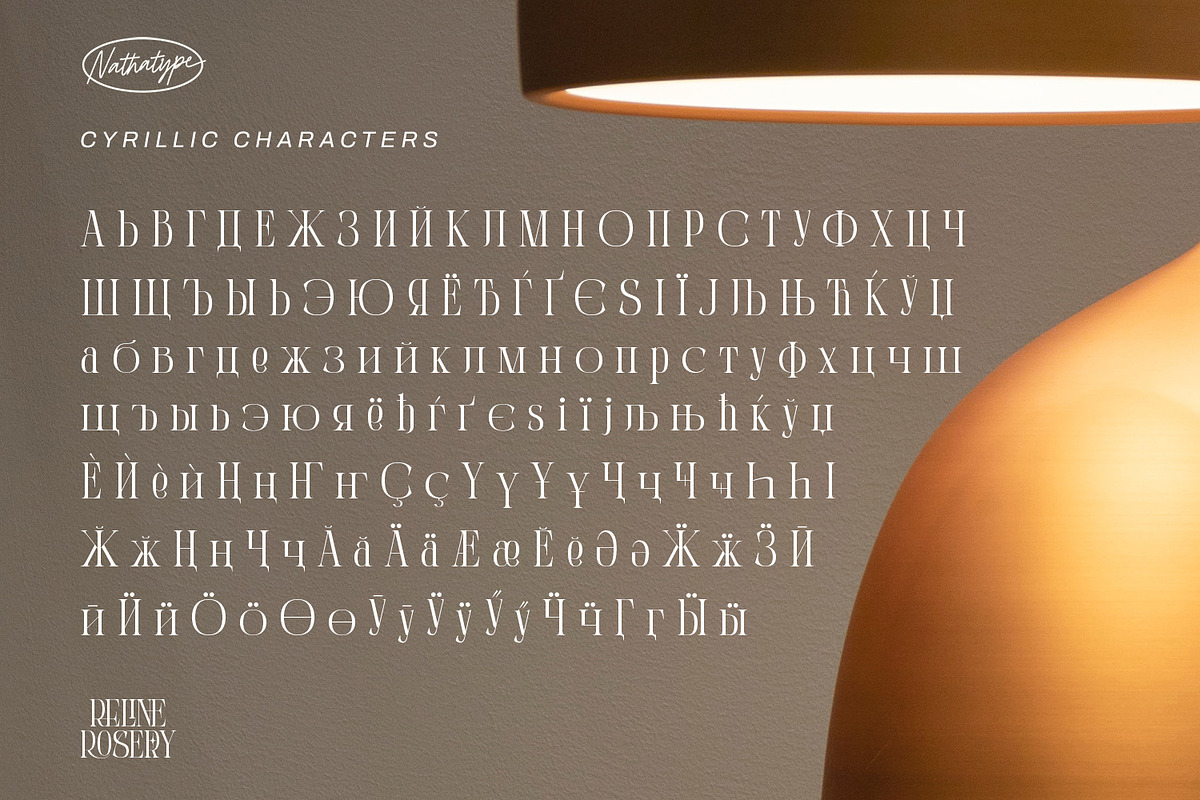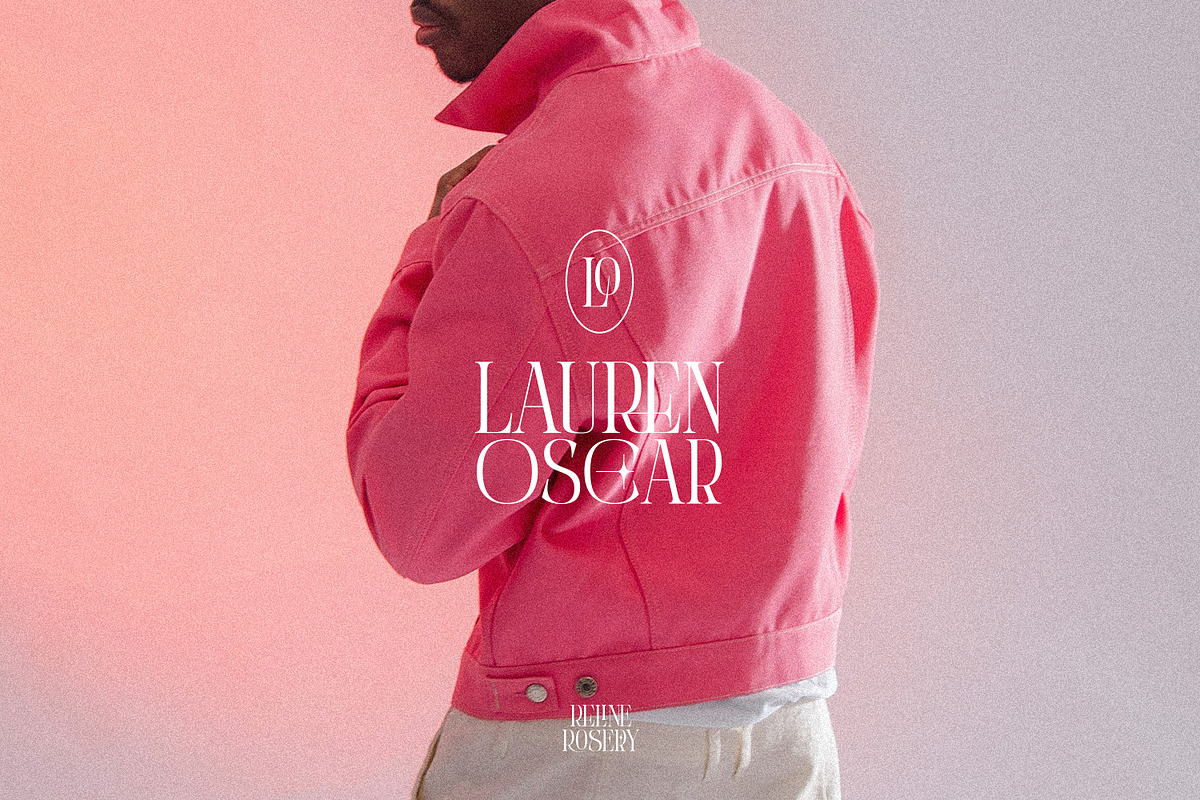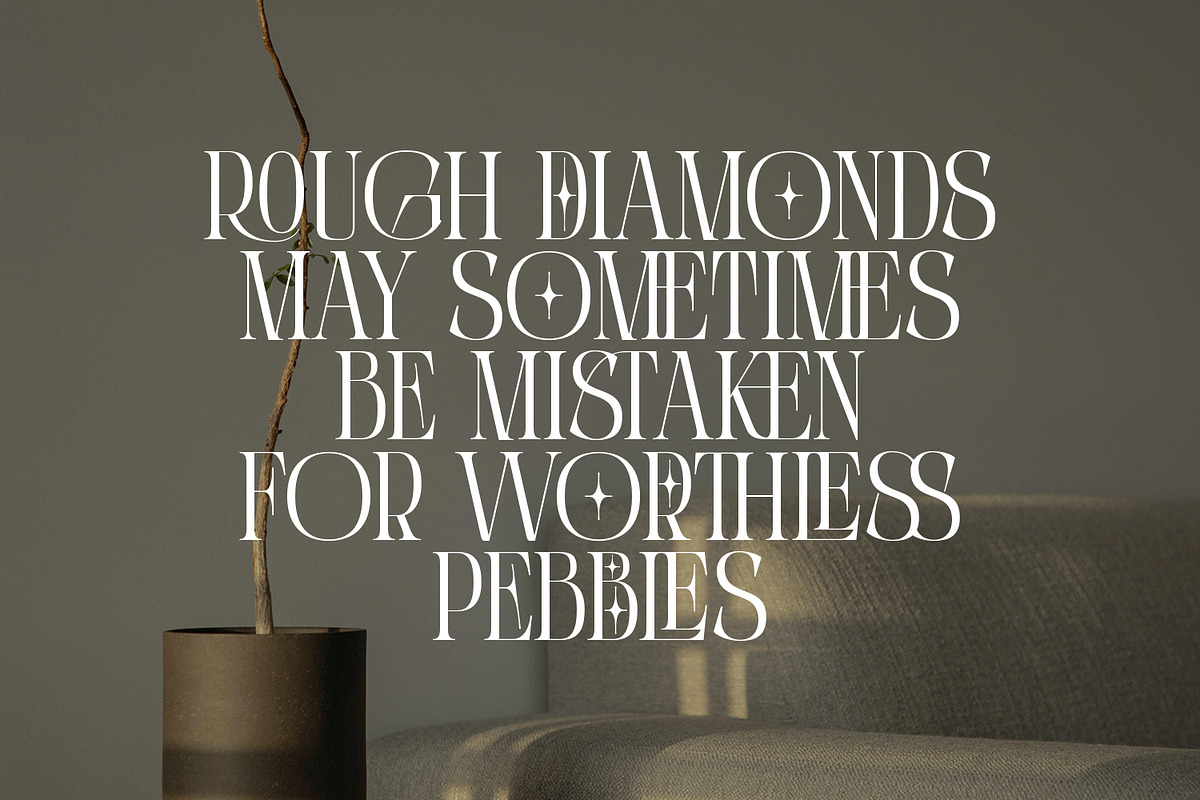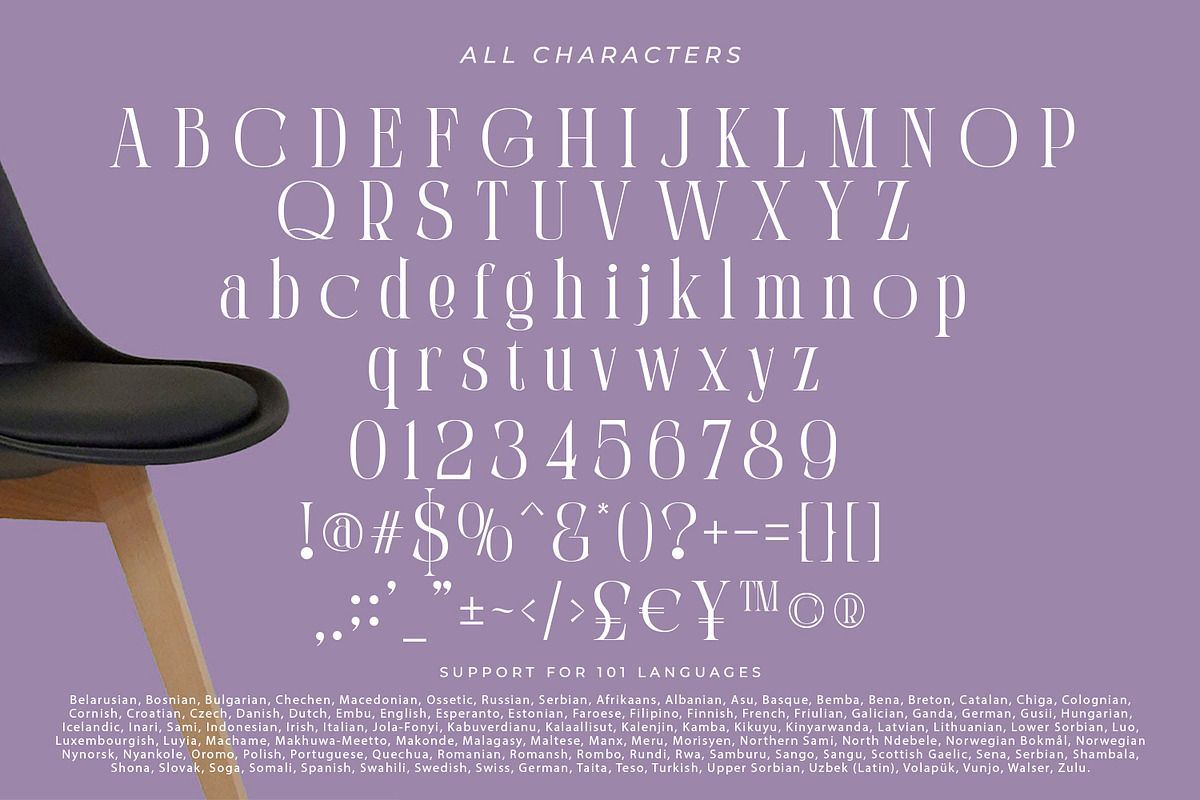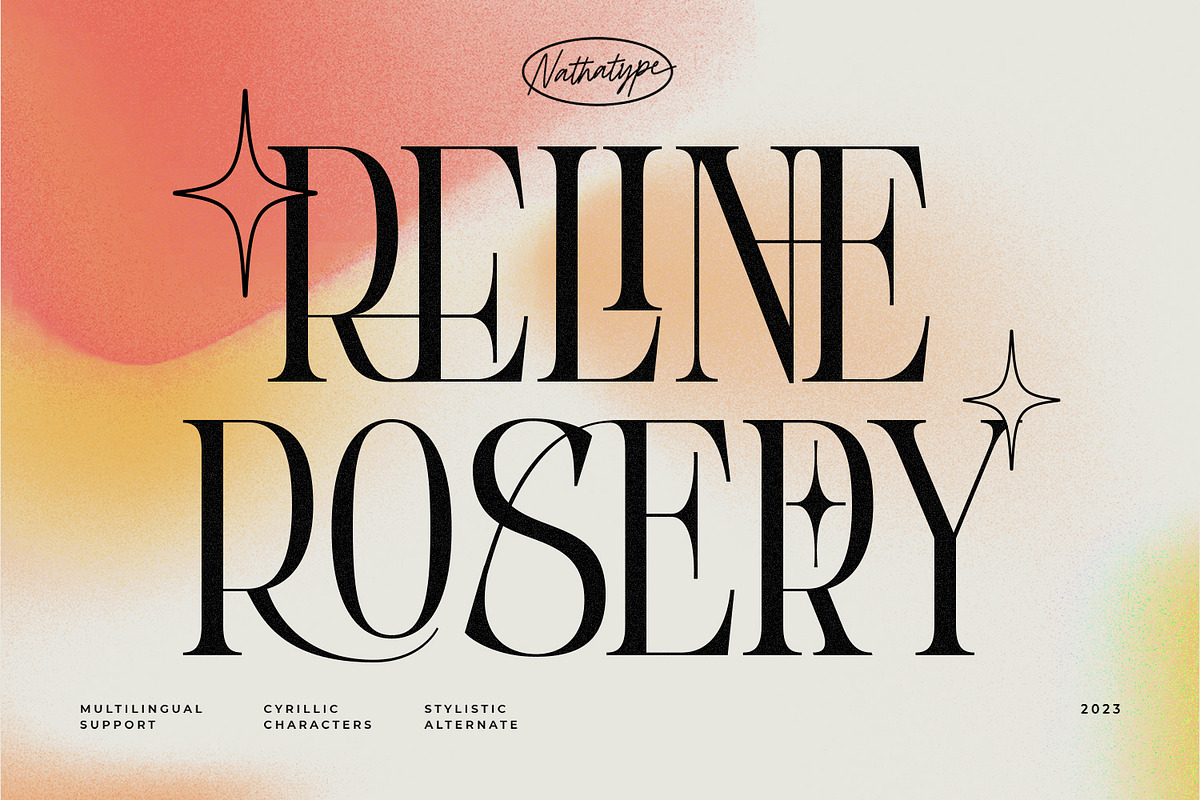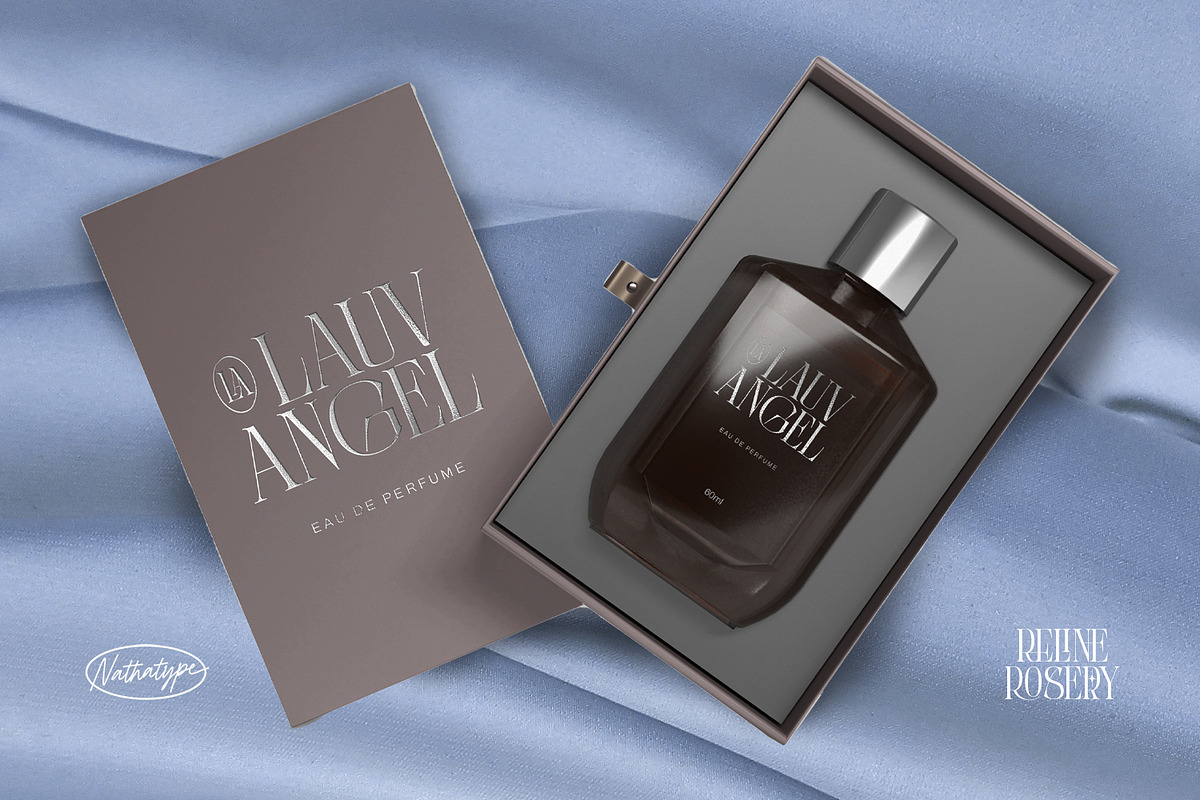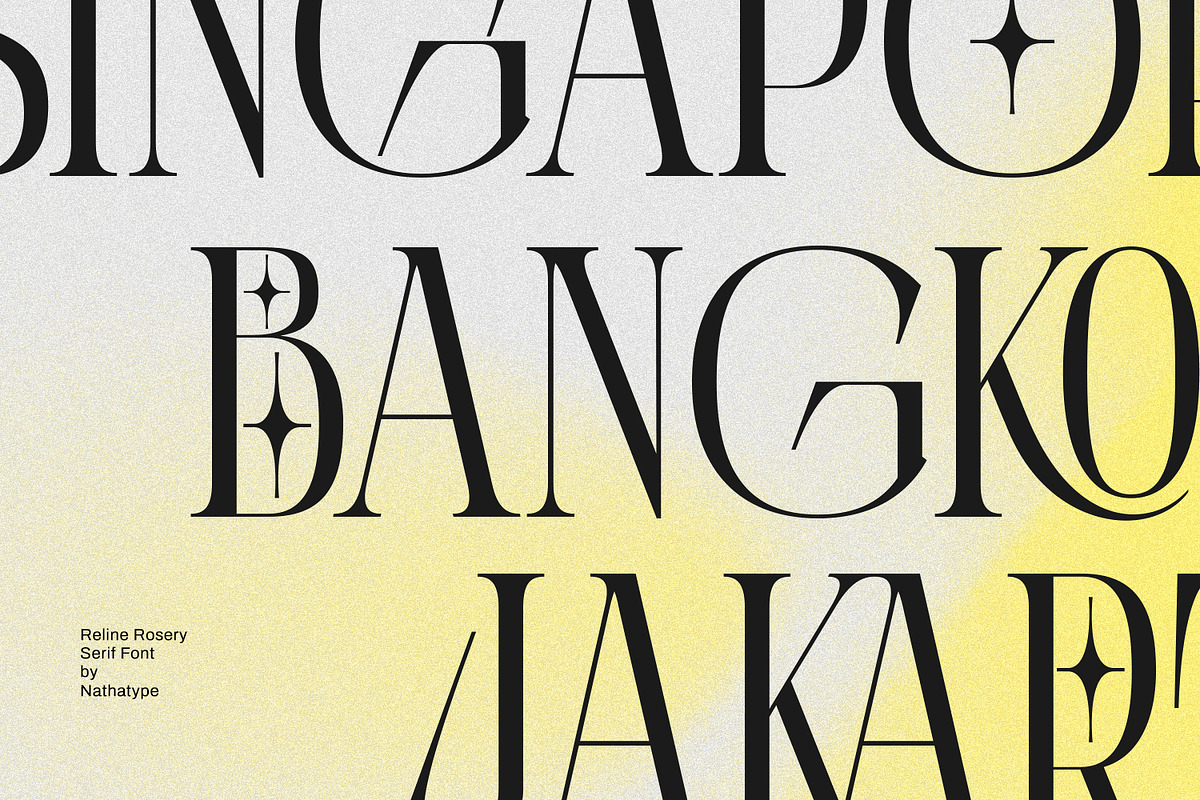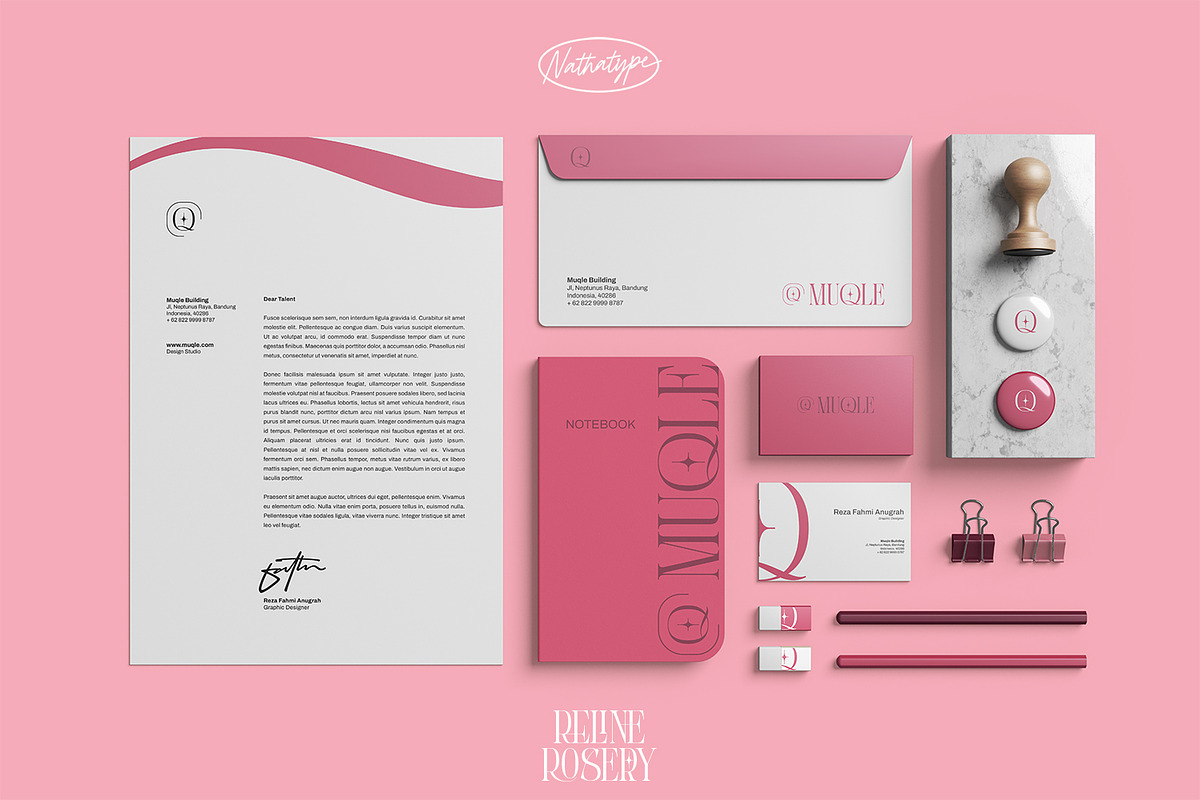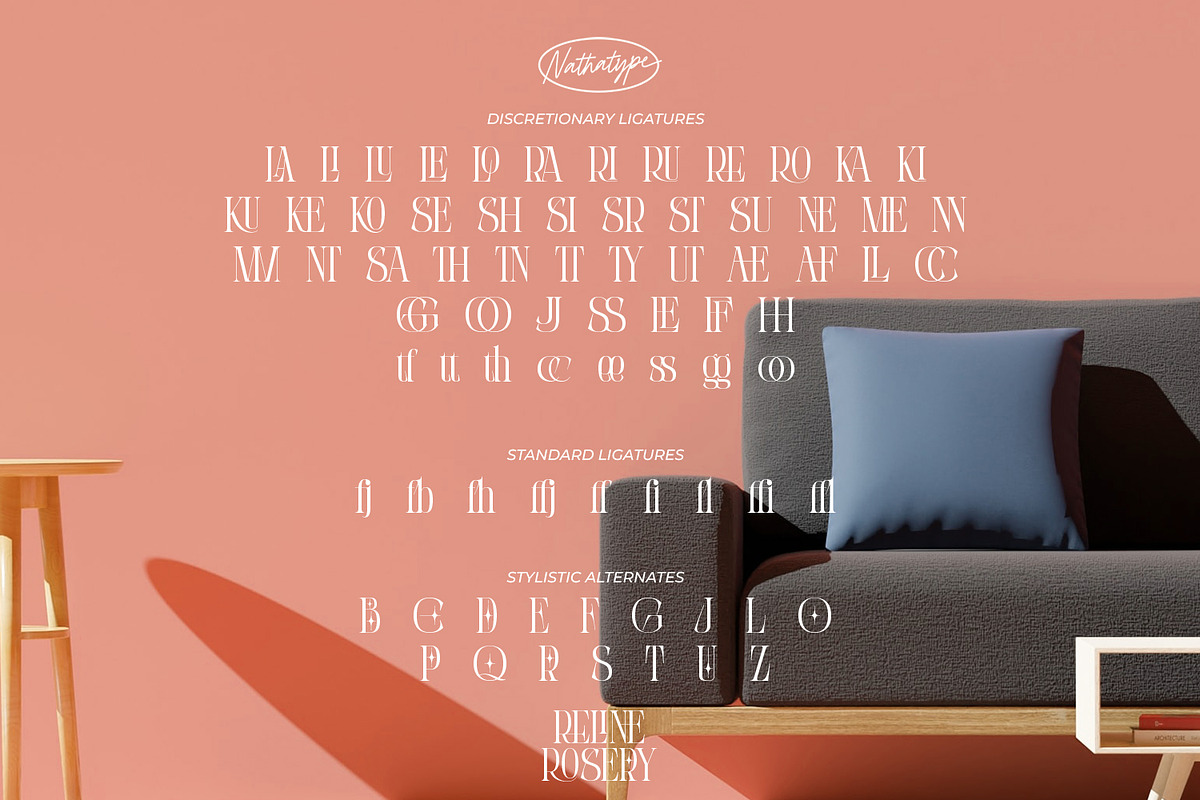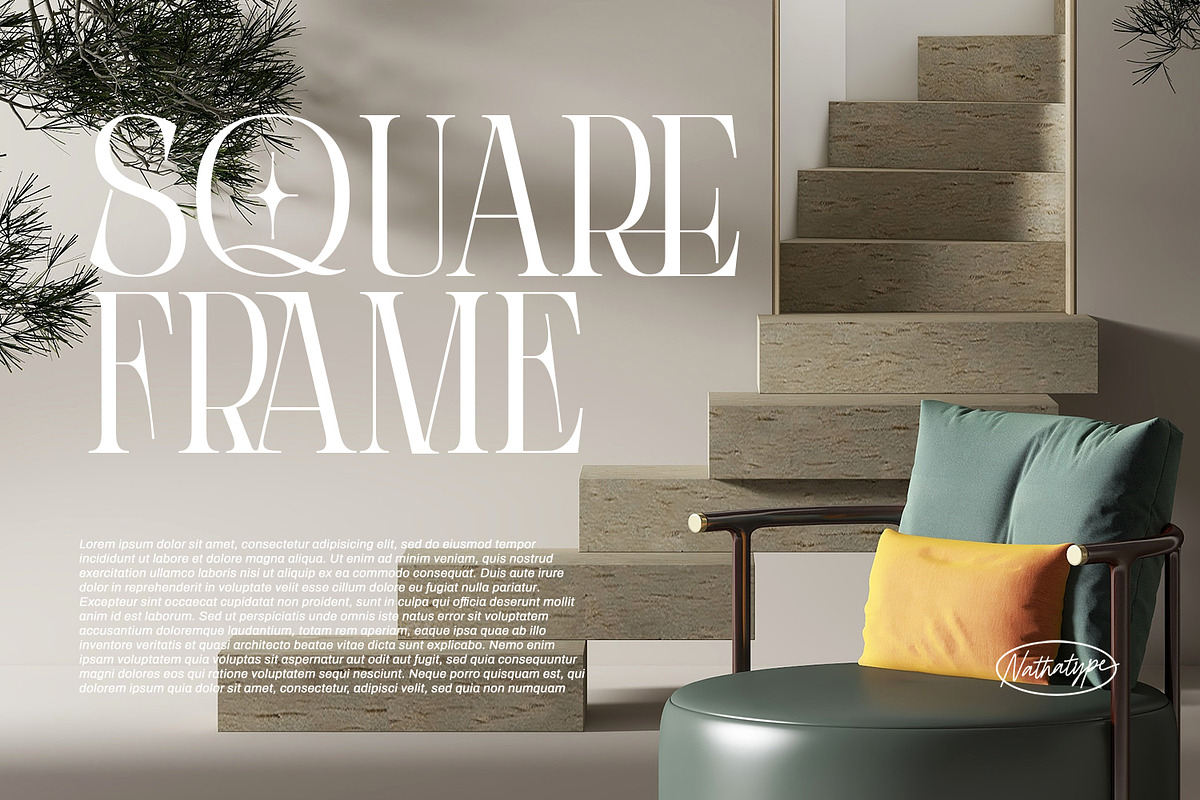
Reline Rosery
Reline Rosery is an elegant serif font that radiates sophistication and grace. With its delicate letterforms and light weight, this typeface exudes a refined and gentle charm. The defining feature of this serif lies in its slender and graceful serifs, which add a touch of elegance to each letter. The light weight of the font enhances its delicate nature, giving it a subtle and airy appearance. This font is perfect for projects that require a refined and sophisticated typography choice. Reline Rosery captures the essence of timeless beauty. The serifs are meticulously crafted to create a sense of harmony and balance, while the light weight adds a contemporary twist. This font strikes the perfect balance between tradition and modernity. The letterforms are carefully designed to maintain legibility and clarity, even in the light weight. Each letter retains its distinctive characteristics, allowing your message to be easily understood. You can also enjoy the various features available in this font.
Reline Rosery fits in branding materials, book covers, wedding invitations, or any project that demands a touch of elegance, this font will bring a sense of refinement and beauty. It is particularly well-suited for applications related to luxury, fashion, beauty, and lifestyle. Find out more ways to use this font by taking a look at the font preview.